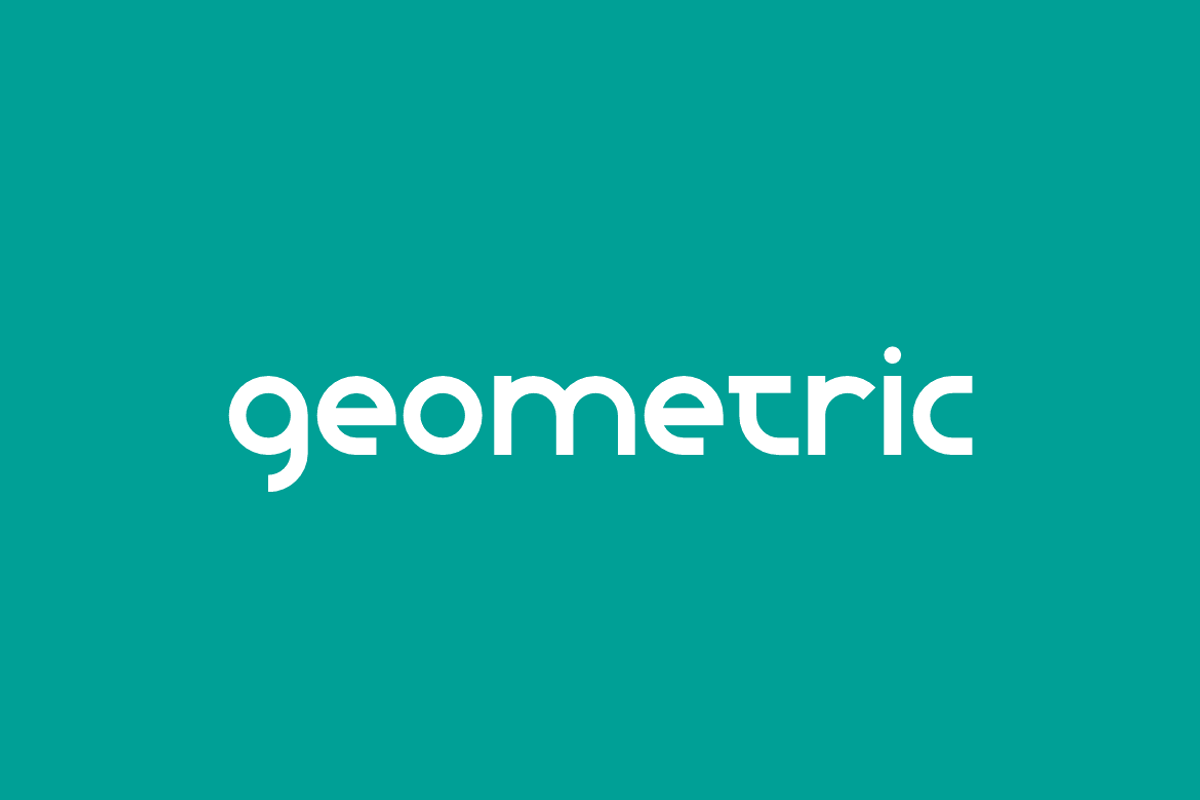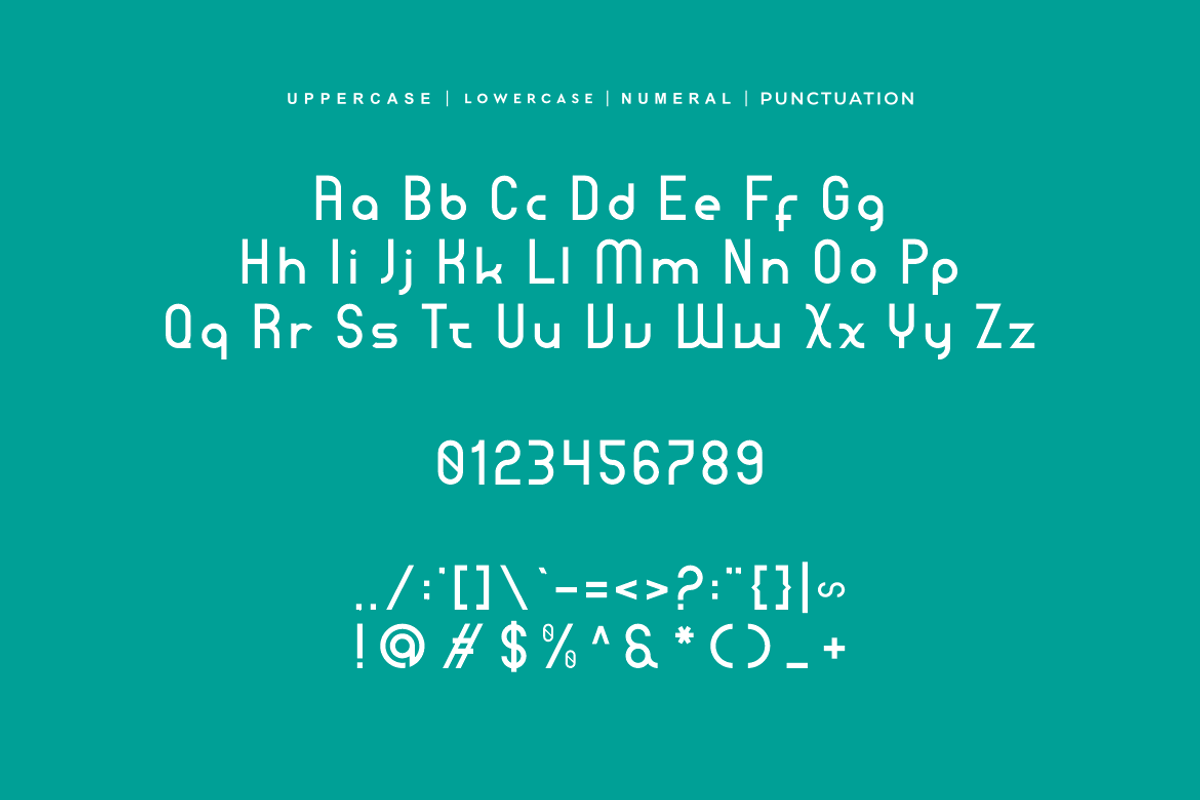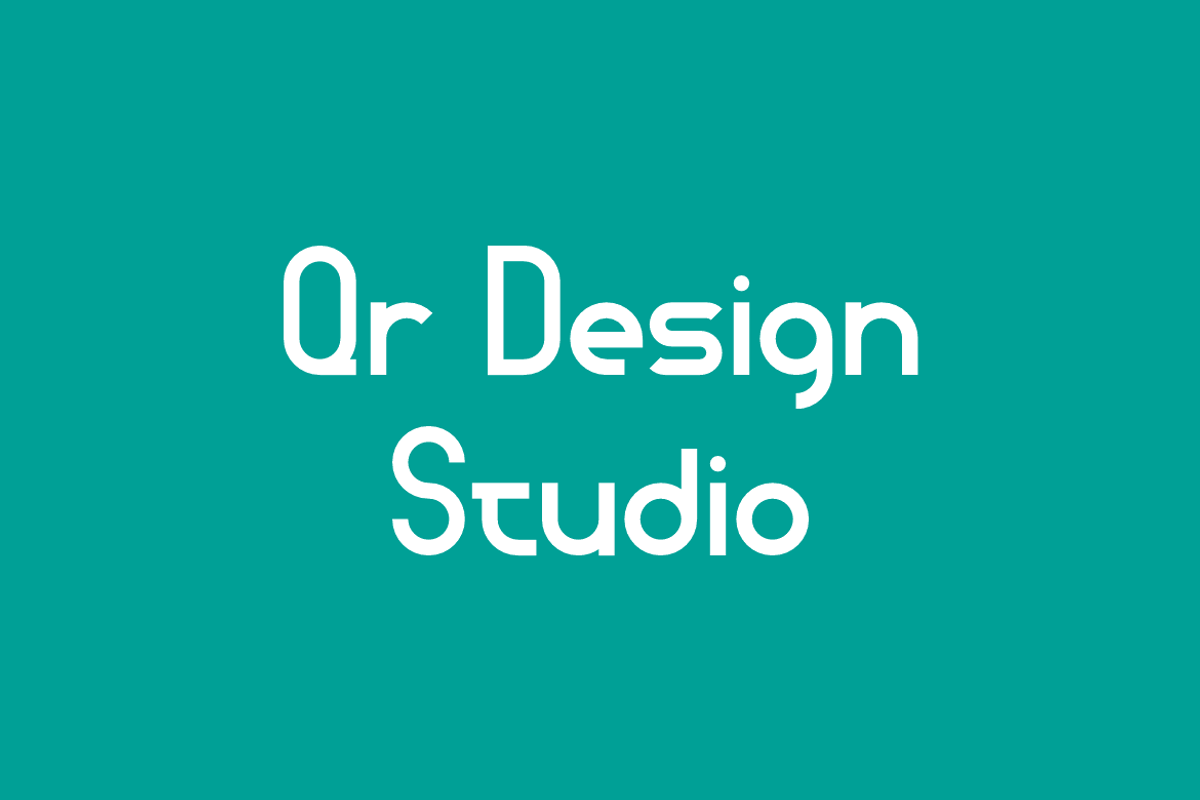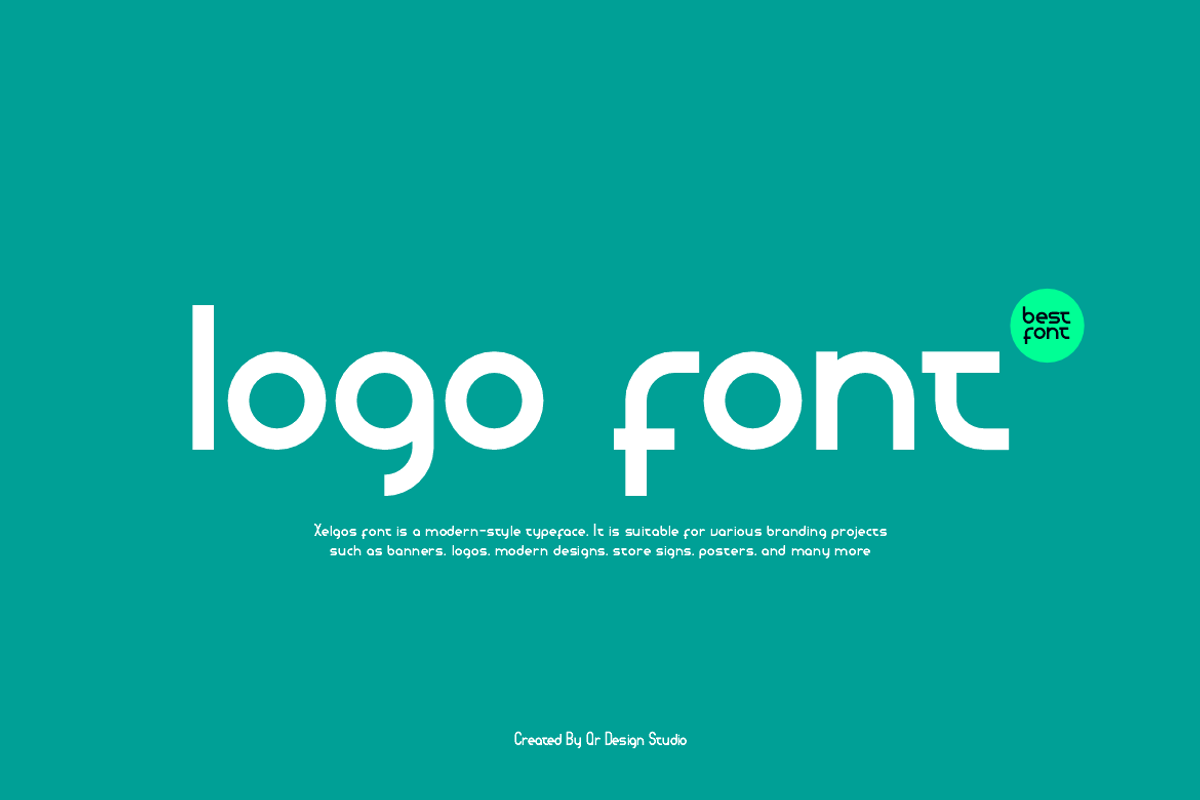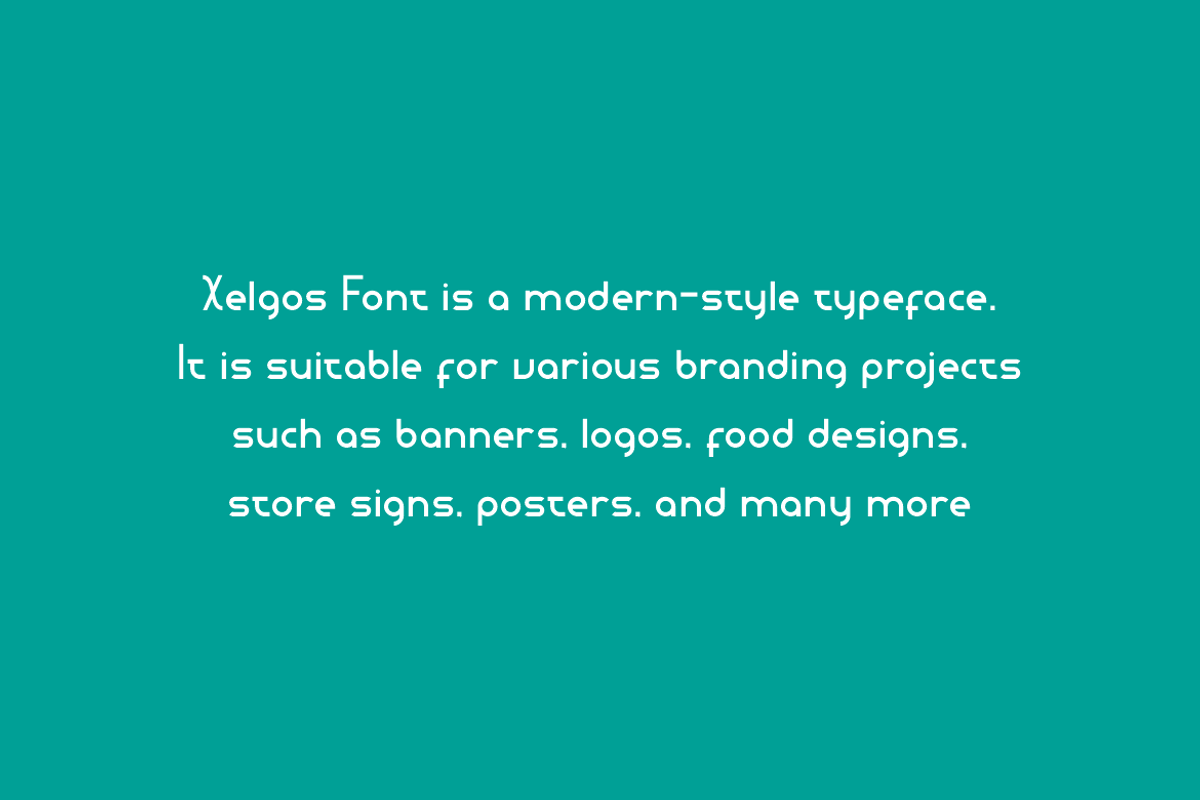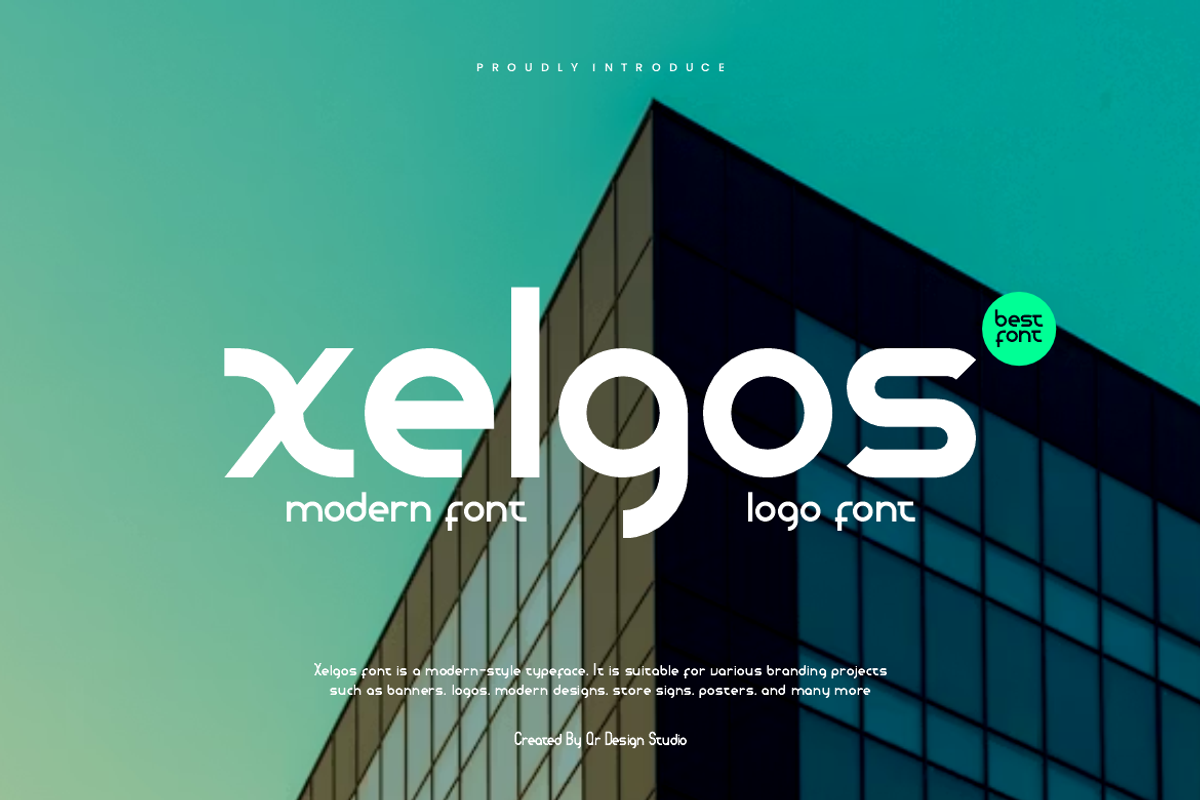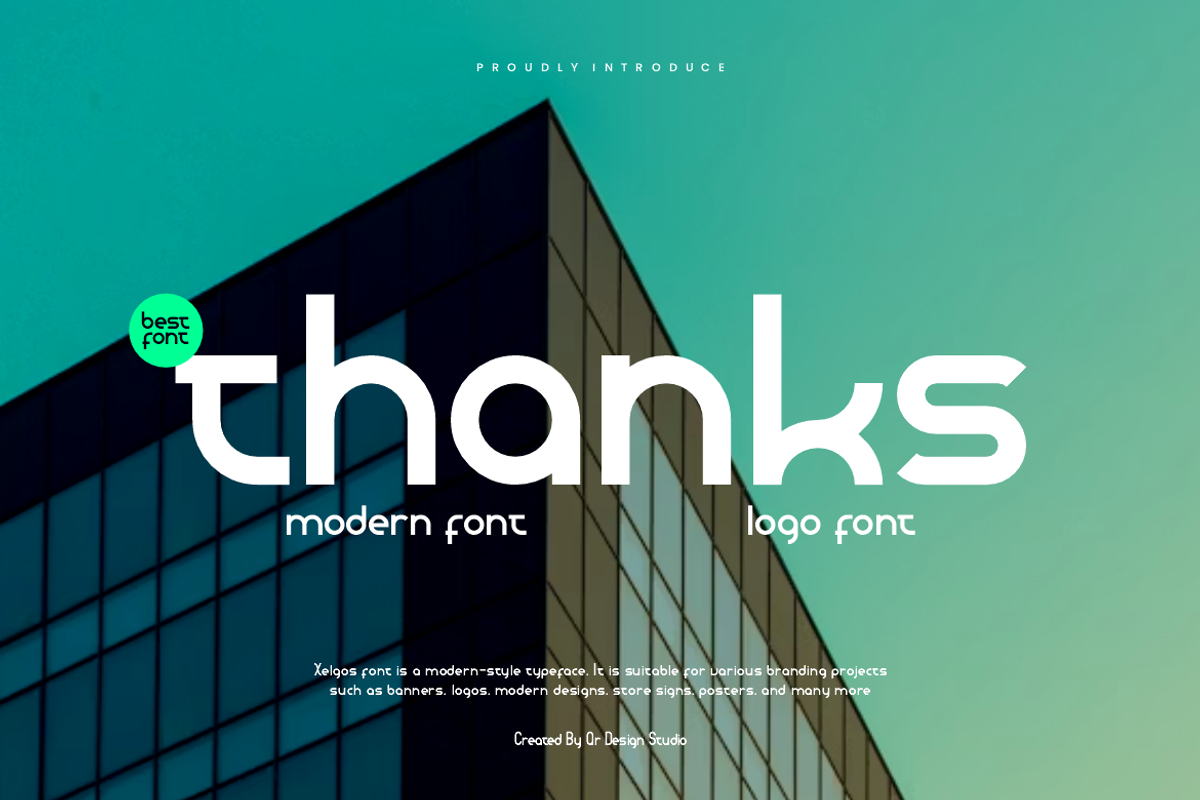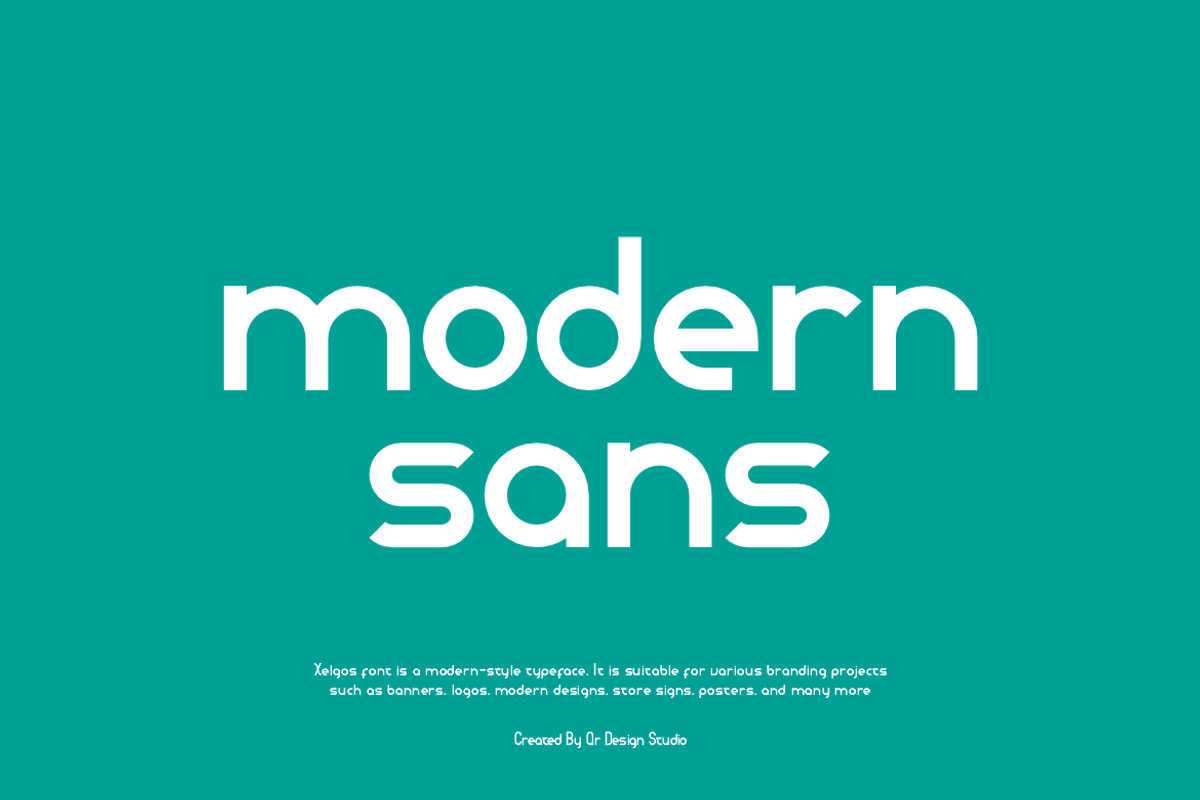
Xelgos - Corporate Logo Font
Xelgos Font is a modern and authentic display typeface. It’s perfect for various branding projects such as logos, sports designs, and more. This font stands out beautifully in a wide range of contexts.